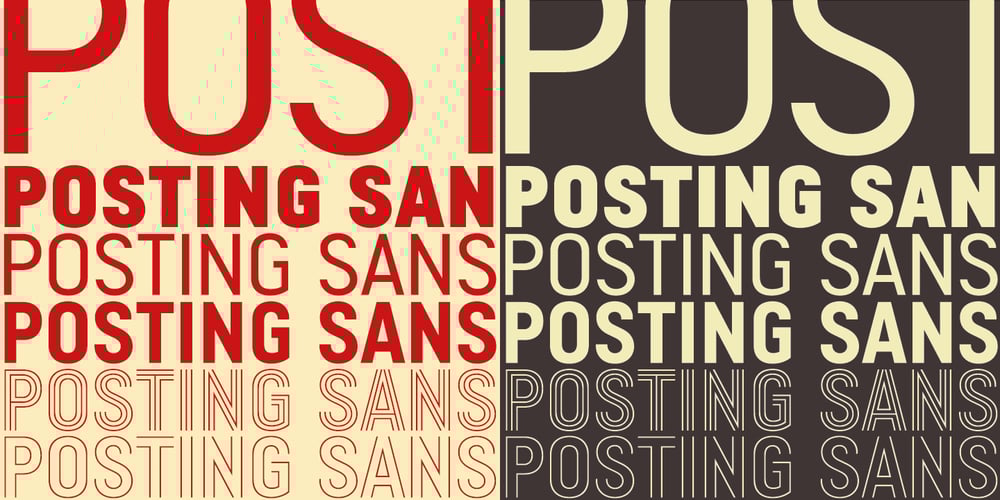
Posting Sans Font Family was designed by Keith Bates and published by K-Type. Posting Sans contains 8 styles and family package options. The Posting Sans typeface is a monolinear, space-saving condensed designed for signs, notices, posters, titles, credits, headings, banners and captions.The basic family comprises Regular, Italic, Bold, and Bold Italic. An additional package of bold Triline and Biline fonts has the same spacing and kerning as the Bold weight for overlapping and companion usage. Heavy and Heavy Italic weights are also available. The fonts contain a full complement of Latin Extended-A characters.The x-height is about as tall as you’ll find to assist readable flow and lowercase legibility. Short ascenders and descenders, and low-rise diacritics, allow for tighter leading in multiple lines of text.